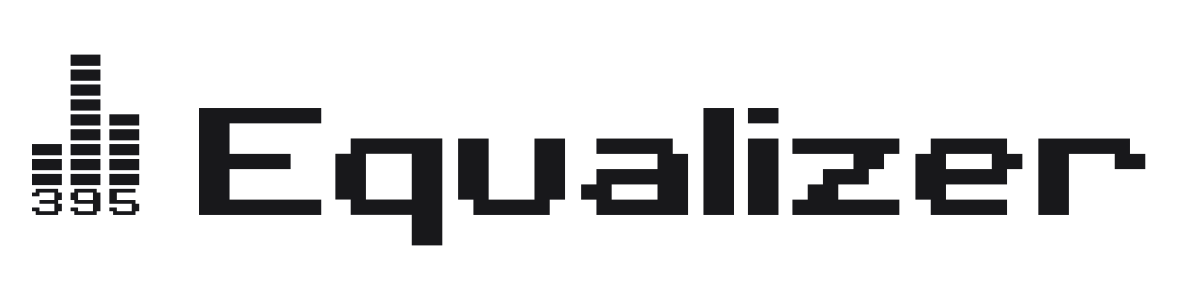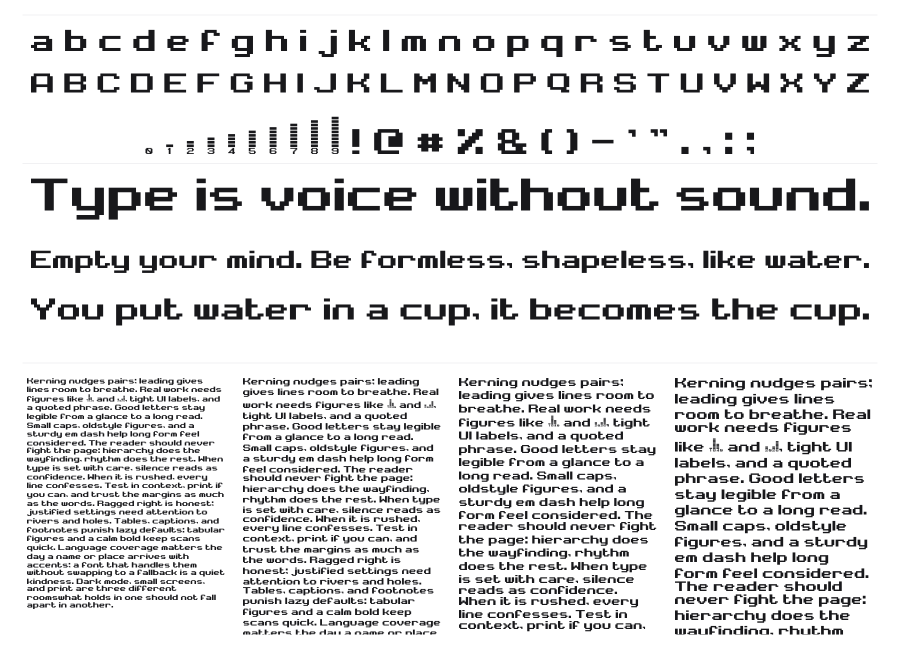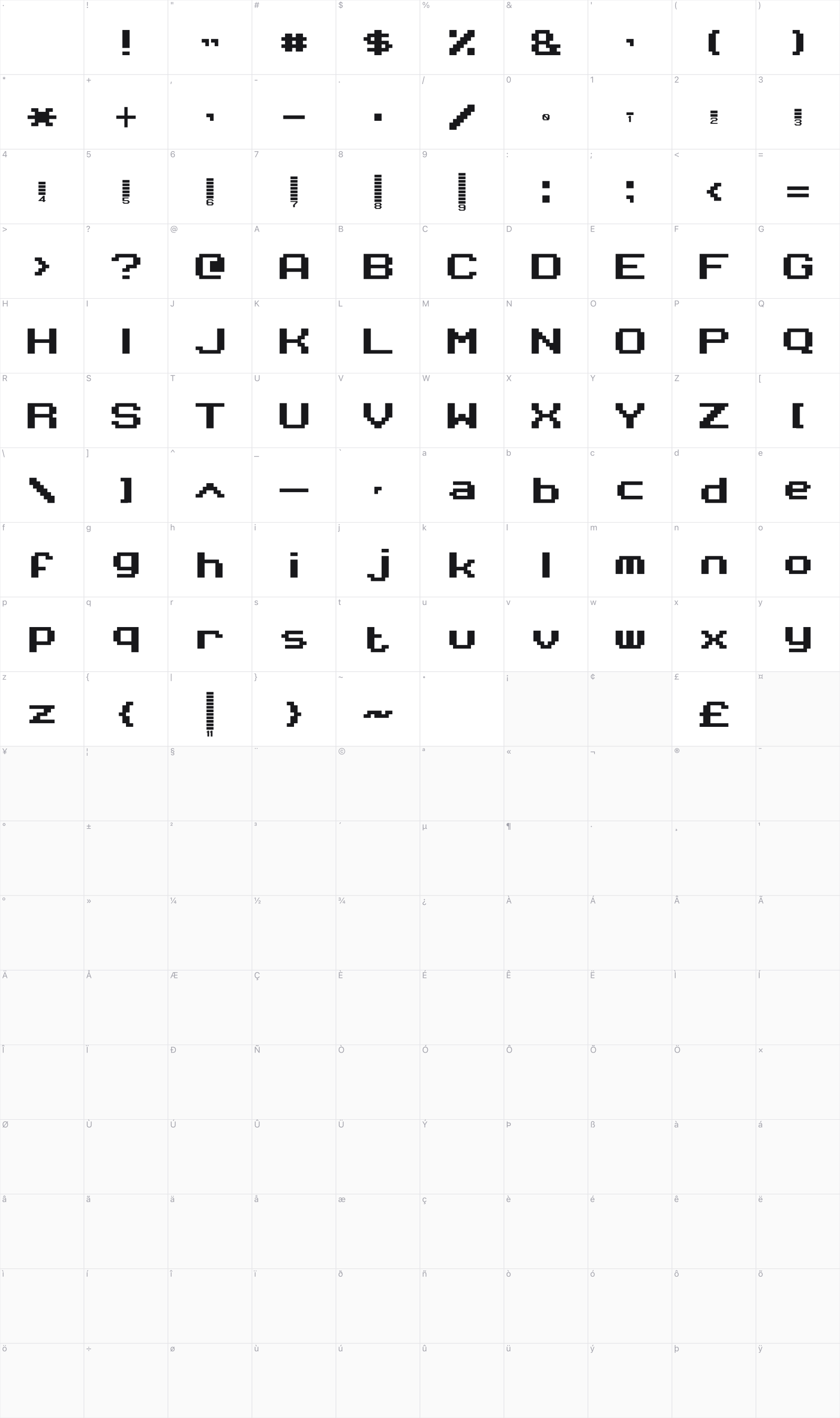
395 Equalizer
395 Equalizer is a chunky bitmap font built from square pixel blocks in classic 8-bit style. Every character sits on a coarse grid with heavy uniform strokes and no antialiasing, making the retro-digital aesthetic impossible to miss. It works at large display sizes where the pixel structure reads as a deliberate design choice rather than a limitation.